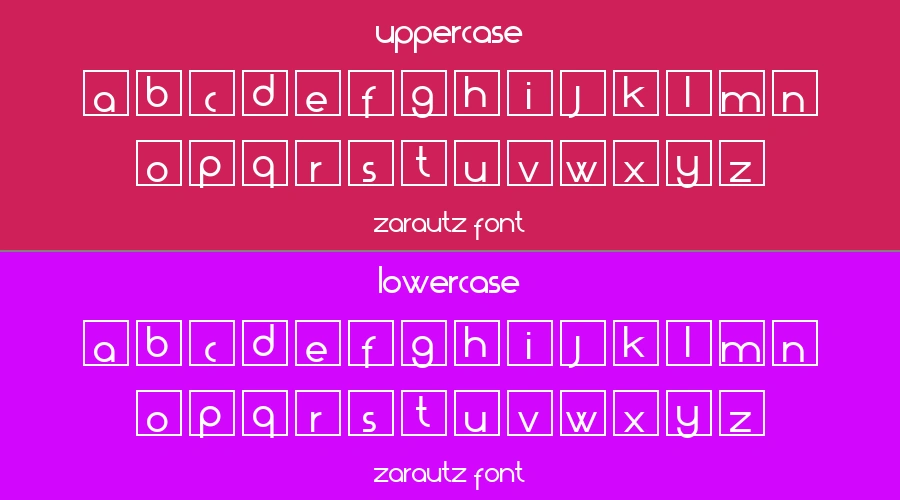
About Zarautz Font
Designed with precision, Zarautz Normal Font merges flowing forms with textural consistency in every character. This versatility makes it particularly effective for advertising headers, where flexibility and professional finish directly impact communication quality. Each letterform demonstrates meticulous craftsmanship.
Technical excellence shines through elements like precise joints and stylistic sets, enhancing typographic versatility. In specification sheets settings, Zarautz Normal Font proves its worth through superior small text clarity. The thoughtful execution of loop structure and research value ensures professional results.